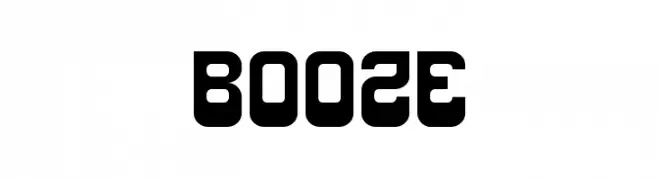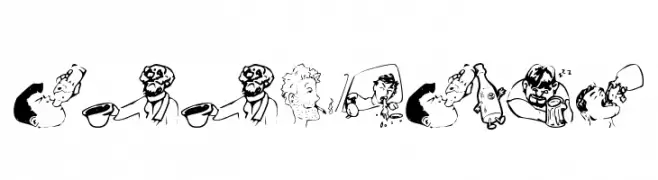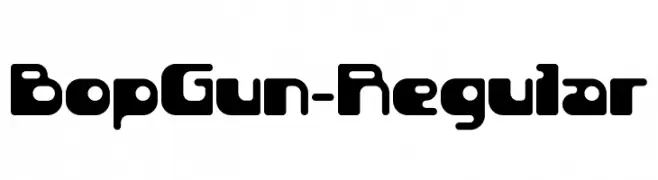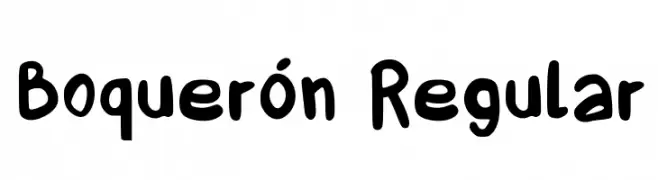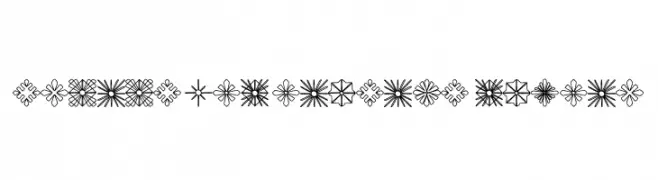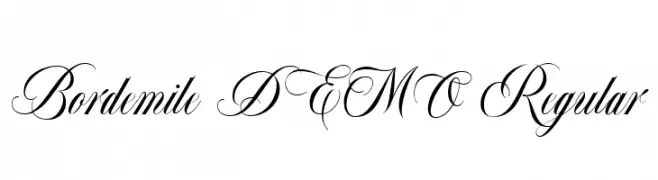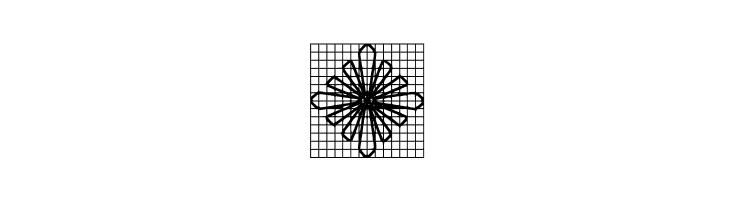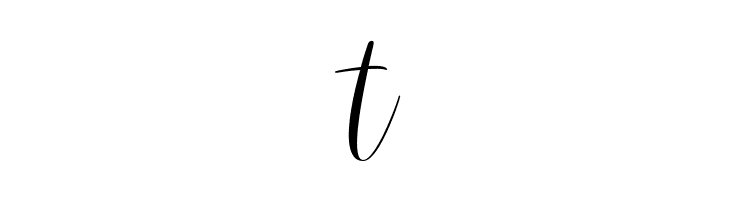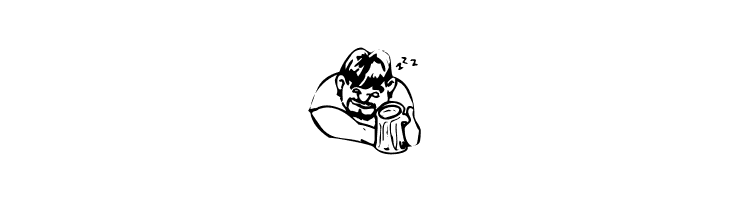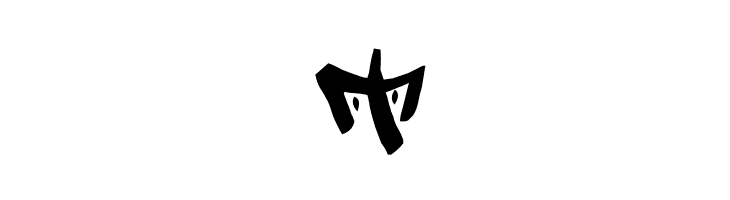
A decorative font with cartoon-style illustrations themed around drinking and socializing.
A bold, rounded font with a futuristic and playful design.
A bold, graffiti-inspired font with dynamic and edgy characters.
A playful, bold font with rounded, hand-drawn characters.
Ornamental font with embroidery-style geometric patterns.
Ornamental font based on embroidery motifs.
A playful handwritten font with a casual and friendly style.
A flowing, cursive font with an elegant and artistic flair.
An elegant script font with intricate swirls and flowing design.